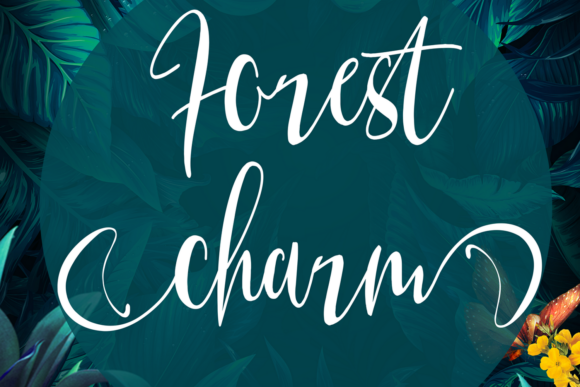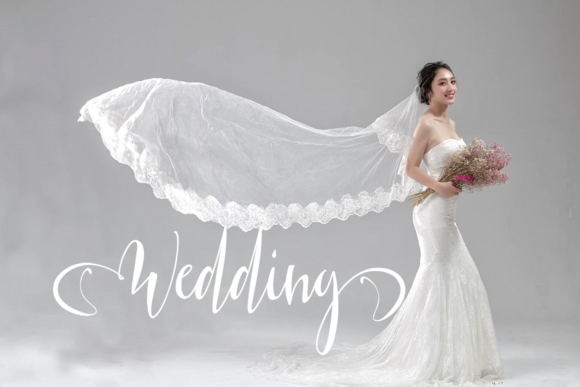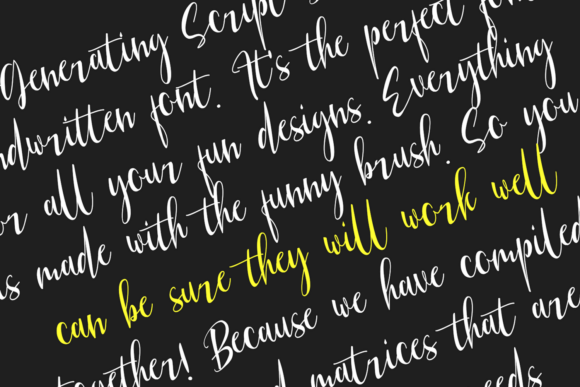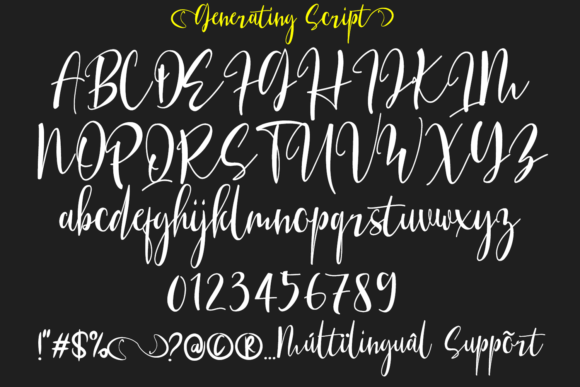
The Elegance of Handwritten Fonts: A Deep Dive into Generating Font
I’ll never forget the time I was working on a branding project for a luxury boutique hotel. My client wanted a font that exuded elegance and sophistication, but also felt modern and fresh. I spent hours scouring font libraries and marketplaces, but nothing seemed quite right. That was until I stumbled upon Generating Font, a beautiful handwritten font that checked all the boxes. In this article, I’ll share my experience with Generating Font, its features, and how to make the most of it in your designs.
A Personal Review of Generating Font
Generating Font is a true gem in the world of handwritten fonts. Here’s what I love about it:
- ✨ Elegant calligraphic influences that add a touch of sophistication to any design
- ✅ Highly versatile, making it perfect for a wide range of applications, from letterheads to stationery
- 💫 Fresh and modern feel that sets it apart from more traditional handwritten fonts
- 🎨 Beautifully crafted to ensure excellent legibility, even at smaller sizes
While Generating Font is an excellent choice, it’s not without its quirks:
- 🤔 Some users may find the font’s elegance and sophistication limiting for more playful or casual designs
- ⚠️ As with many handwritten fonts, it may not be the best choice for body text or long-form content
How to Use Generating Font: A Practical Guide
The Story Behind Generating Font
Generating Font was created with the goal of distilling elegance into a single, outstanding handwritten font. The designer aimed to craft a font that maintained classy calligraphic influences while feeling contemporary and fresh. Through careful attention to detail and a passion for typography, Generating Font was born – a versatile and beautiful font suitable for a wide range of creative projects.
| Font Name | Generating Font |
| Author | 177Studio |
| What makes Generating Font unique? | Generating Font stands out for its elegant calligraphic influences, modern feel, and versatility, making it perfect for a wide range of design applications. |
| Is Generating Font suitable for body text? | While Generating Font is an excellent choice for headings and titles, it may not be the best choice for body text or long-form content due to its elegant and sophisticated nature. |